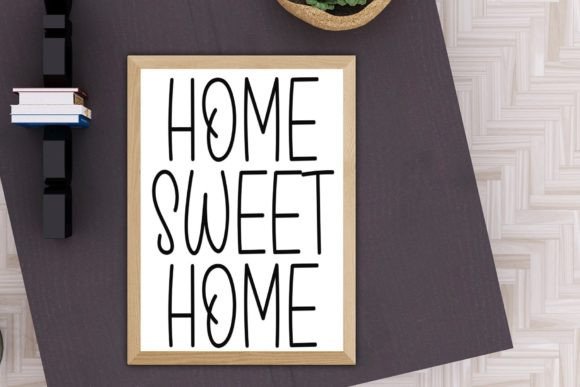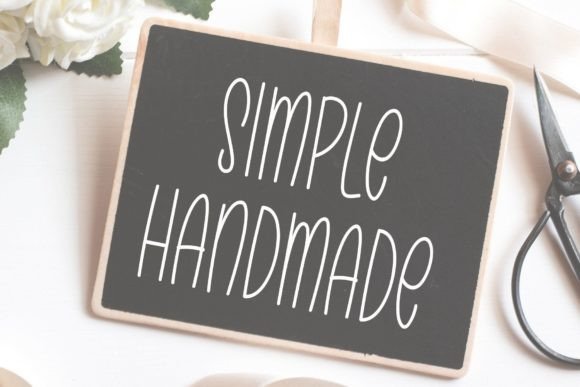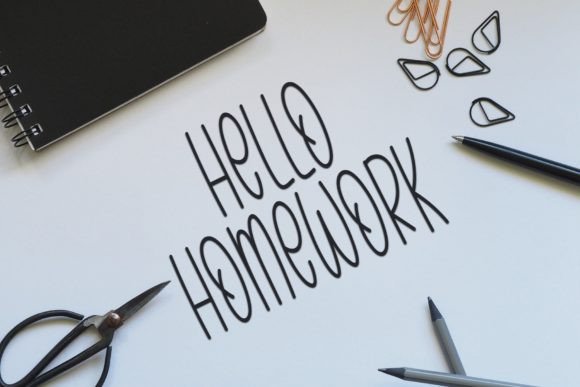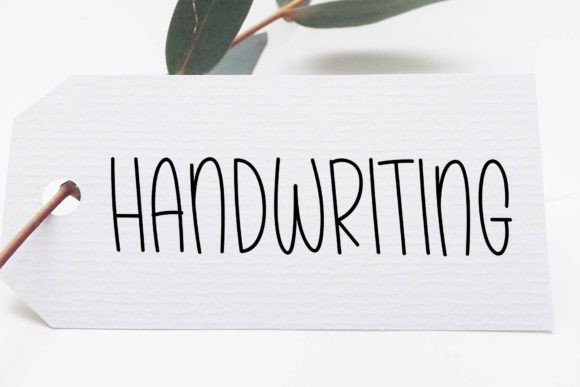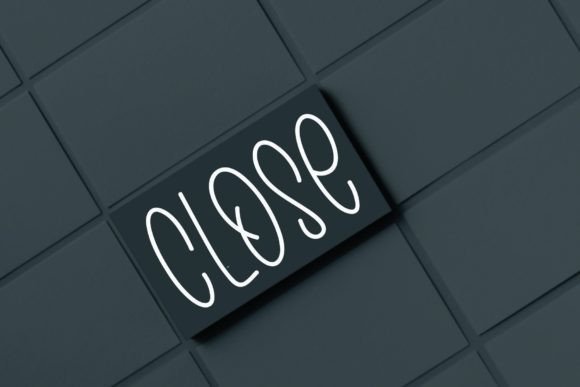
Discover the Magic of Home Alone Font
Have you ever stumbled upon a design that makes you stop in your tracks? A beautifully crafted font that instantly elevates the entire aesthetic? For designers, these moments are what make all the hard work worth it. I still remember the first time I laid eyes on the Home Alone Font – its elegant, curvy lines danced across the screen, leaving me captivated and inspired.
The Home Alone Font is a stunning handwritten font that’s perfect for making a statement in your work. Whether you’re creating product packaging, branding projects, or magazine covers, this font is sure to make your designs stand out. Its versatility and sophistication make it a valuable asset for designers, allowing you to express your creativity and add a personal touch to your projects.
Key Features of Home Alone Font
- Font Family: The font used in the Home Alone movie title is a custom, sans-serif font, specifically designed for the film.
- Unique Characteristics: The font features a distinctive, bold, and playful feel, with rounded edges and a slightly condensed width, making it easily recognizable and memorable.
Home Alone Font Review
The Home Alone Font is a quirky, playful font that’s sure to bring a smile to your face. I love how it captures the spirit of the classic movie. ✨ The font’s rough, handwritten feel is reminiscent of Kevin McCallister’s improvised booby traps, and the eclectic mix of letterforms is reminiscent of the film’s offbeat humor. ✨
- The font’s unique character sets it apart from more generic, serif fonts.
- It’s perfect for use in film or TV-related projects, or for anyone looking to add a bit of nostalgia to their design.
- The font’s imperfect, handwritten feel can add a touch of authenticity to digital designs.
However, the font does have some limitations. ⚠️ The character set is relatively limited, and the font may not be suitable for extended blocks of text. Additionally, the font’s rough feel can sometimes make it difficult to read, especially at smaller font sizes. ⚠️
Overall, I think the Home Alone Font is a fun, quirky addition to any designer’s toolkit. While it may not be suitable for every project, it’s sure to add a bit of personality and whimsy to any design that requires a bit of flair.
For the most out of the Home Alone font, use it for titles and headings in your designs. It’s particularly effective for creating a retro or nostalgic feel. Common use cases include:
- Movie title sequences
- Retro-themed advertisements
- Christmas or holiday-themed designs